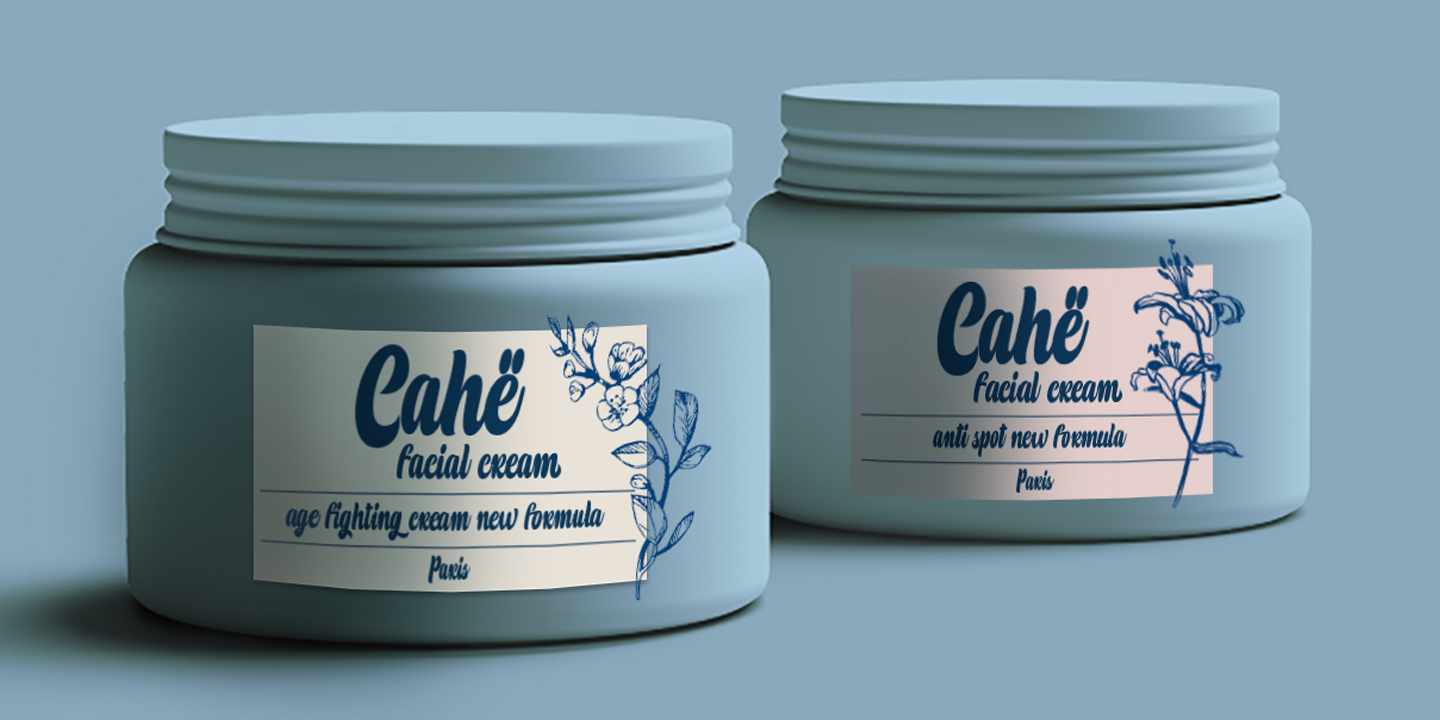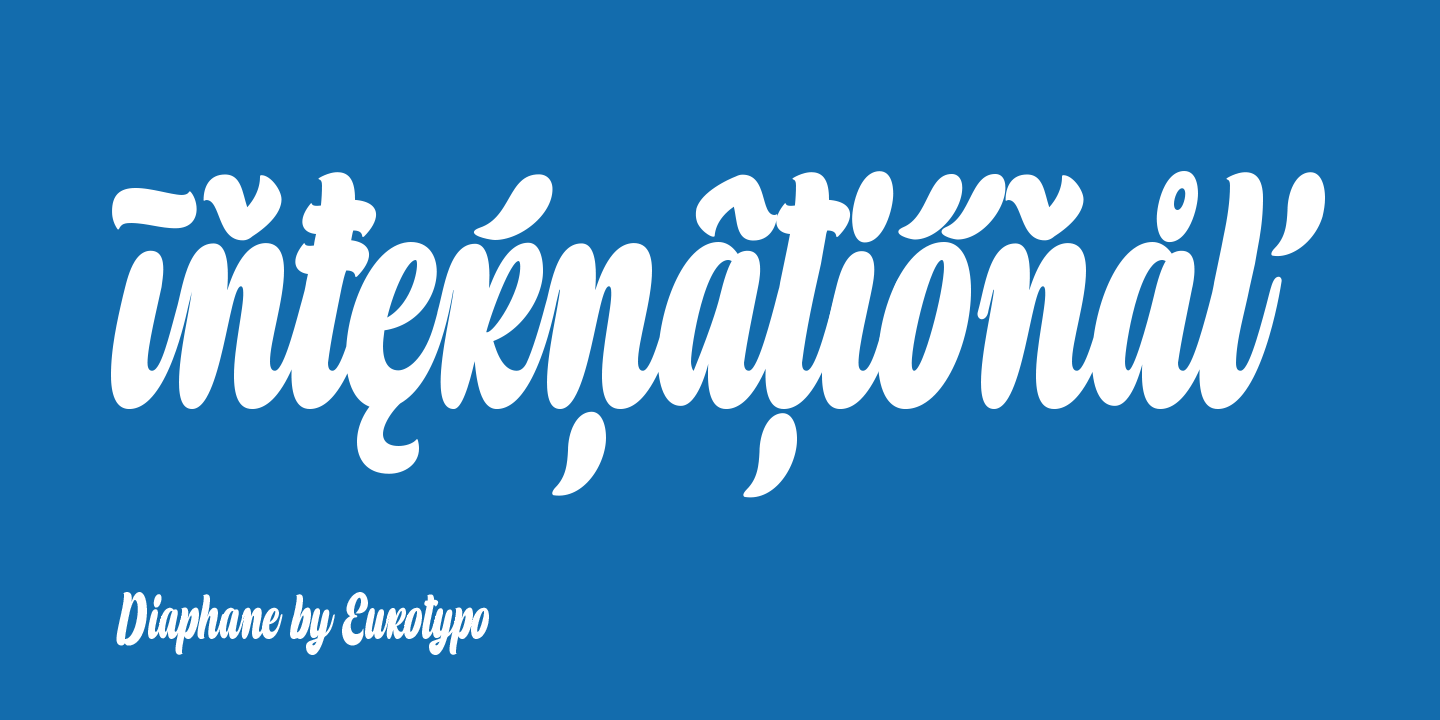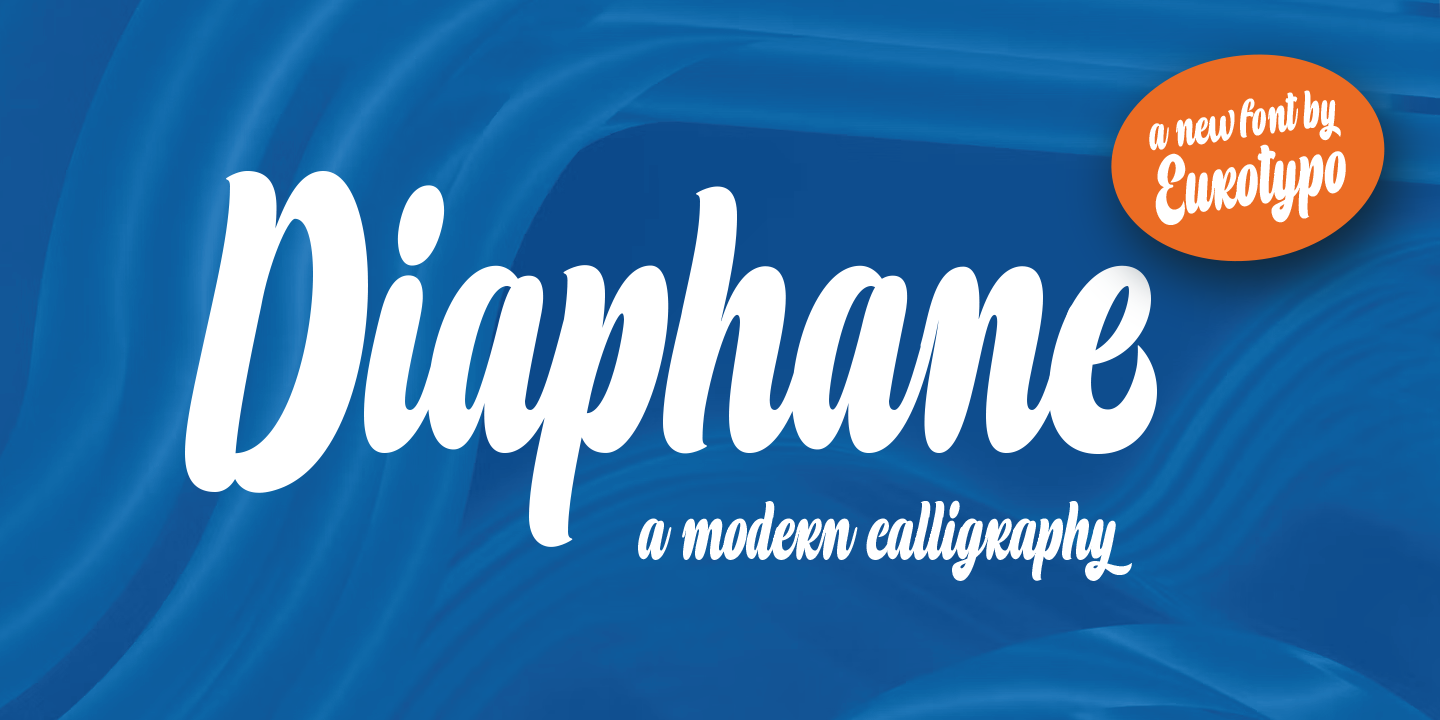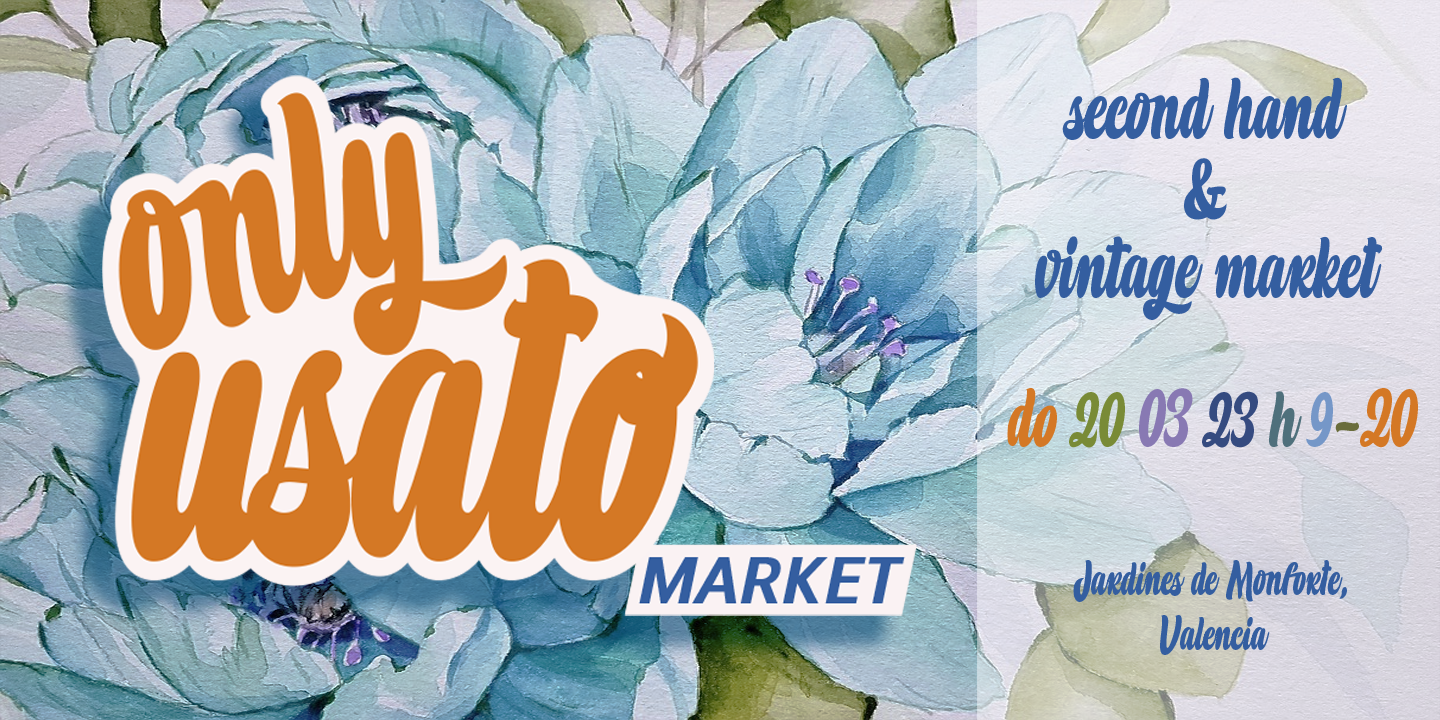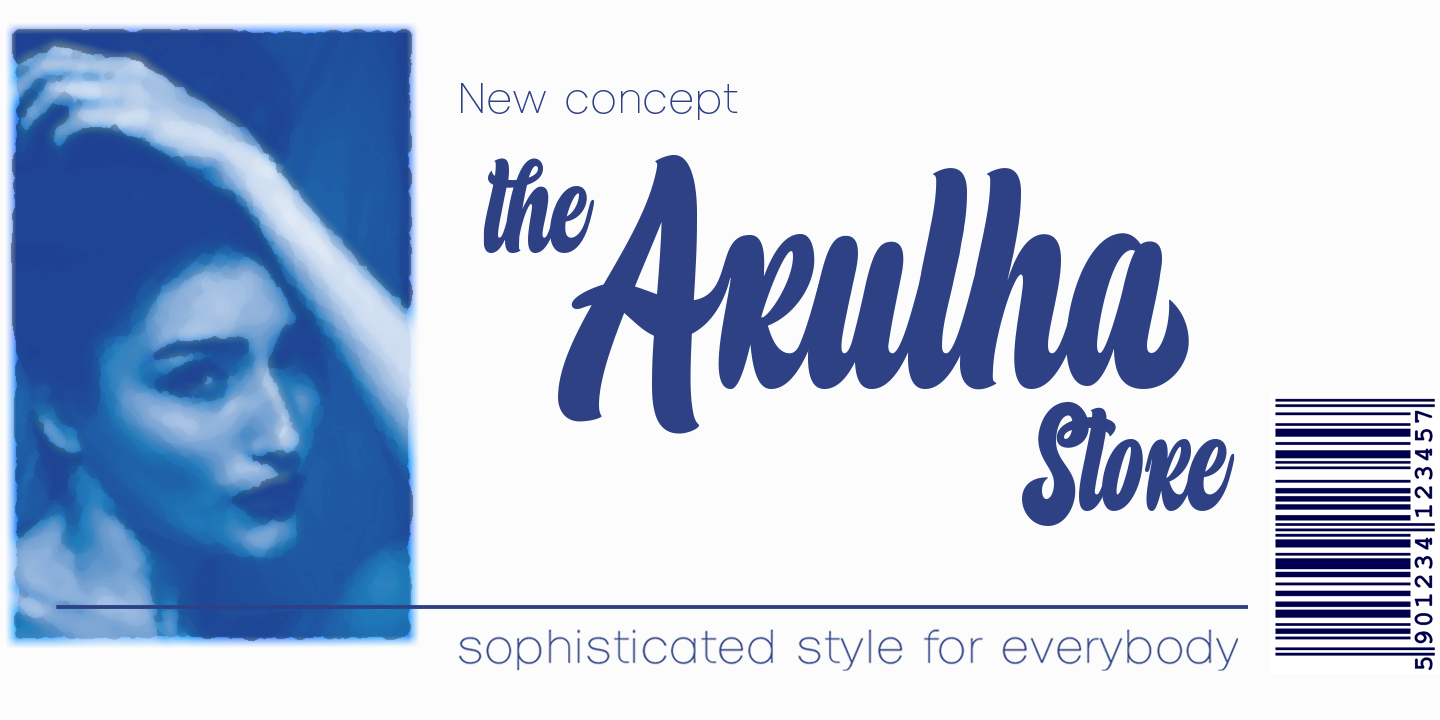
Diaphane
A Condensed Vintage Hand-Drawn Font
Diaphane is an informal, condensed hand-drawn font with a vintage touch.
OpenType Features & Authentic Flow
This font is equipped with several OpenType features: a large set of ligatures, as well as different alternatives in some letters, to create more authentic and varied connections between letters, and, a set of terminal forms so you can give a nice ending to your sentences. These features give it a pleasing appearance that references traditional fluid writing, with an added warmth and authenticity to your designs. It also contains support for Central European languages to fit your design.
Perfect for Packaging & Labels
Discover the versatility of the Diaphane font! It is a distinctive and elegant choice for packaging, labels, signs and headlines. Boost your design now!